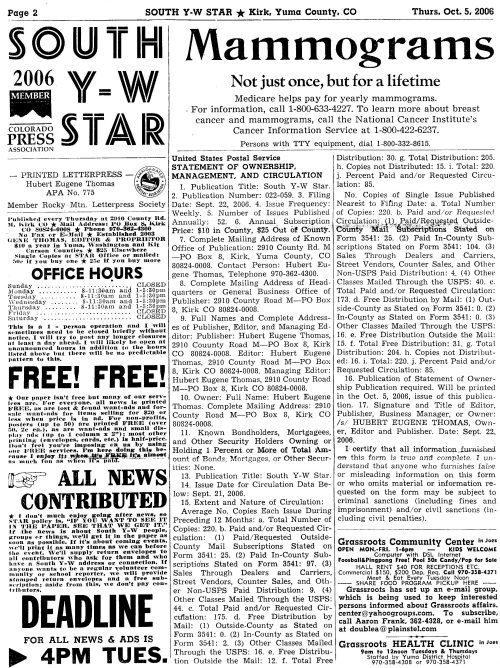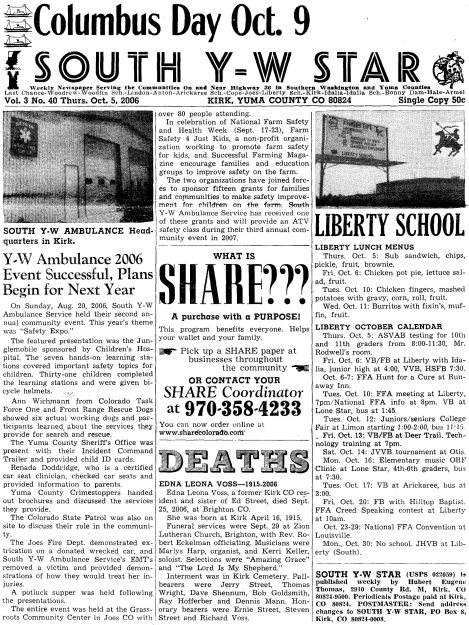
Total Letterpress newpaper
For the past three years I have been getting a weekly newspaper 11x17 set on a Linotype 8 and printed on a letterpress press.
The paper is:
South Y-W Star
Very nice man prints the paper.
His name is: Hubert Eugen Thomas
Member of the Rocky Mtn. Letterpress Society
I love reading, it takes me back to the days I was a letterpressman. I started in te early 60's.
Any chance of a scan of the paper, aaron, so that I can put it on the board for all to see.
Aaron recently posted me a couple of copies of the "South Y-W Star"  I've scanned a couple of pages in for everyone to see:
There's some interesting fonts in there, and I particularly liked the picture of the linecaster and matrix to the left of the paper's title!